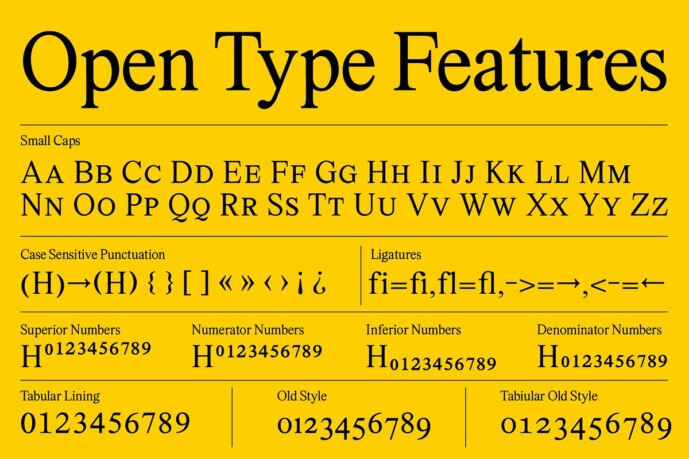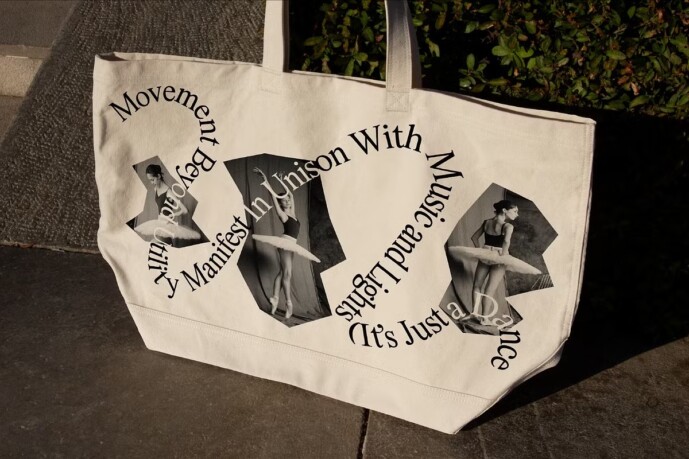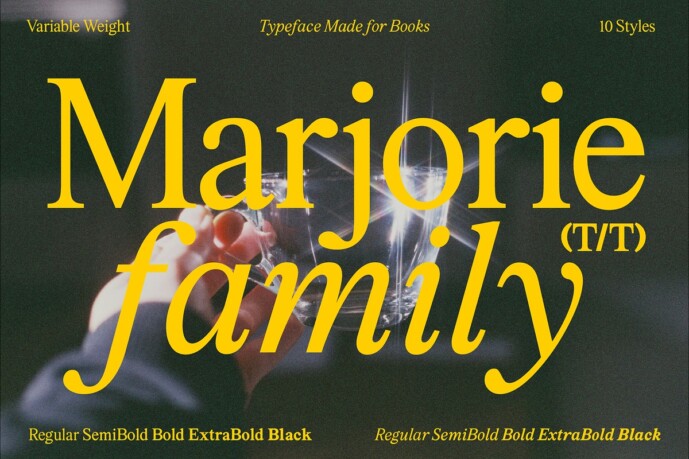
Marjorie Font Family
Designer: That That Creative
Marjorie Font Family is a font family that includes 10 styles 5 weights in roman, and 5 in Italic. The font includes 2 Variable fonts one for the Roman and one for the Italics. This Typefaces is designed for reading… ironic I know, but let me exolain. it’s for reading long blocks of text and even books. It is easy on the eyes and not distracting letting reading being the star or the show not the font itself. This is your go to serif for putting big work.